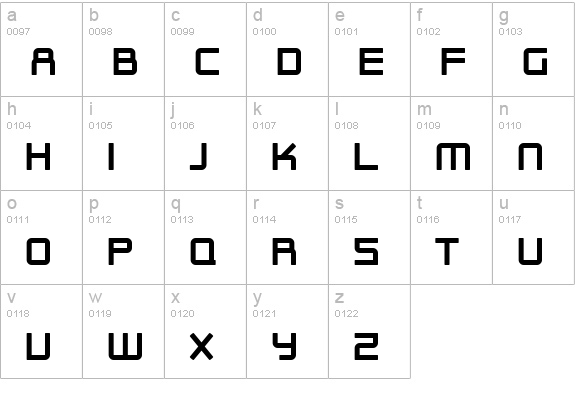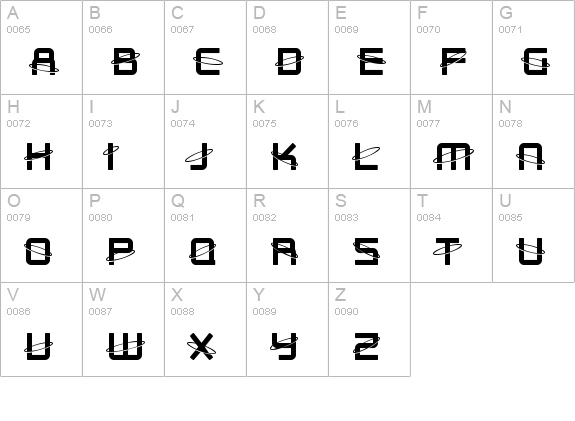
SF Outer Limits Upright Font Details
SF Outer Limits Upright is a captivating and futuristic font that pushes the boundaries of traditional typography. With its sleek and angular design, this font is perfect for projects that require a modern and edgy aesthetic. The bold and upright letterforms exude a sense of confidence and power, making it an excellent choice for headlines, logos, and branding materials. What sets SF Outer Limits Upright apart is not only its striking appearance but also the fact that it is freely available to download at FontsMarket.com. This means that designers and creatives alike can access this unique and versatile font without any cost or restrictions. Whether you are a professional designer or a student working on a personal project, SF Outer Limits Upright is a valuable asset that will enhance your creative endeavors. The character set of SF Outer Limits Upright includes a complete range of uppercase and lowercase letters, numbers, punctuation marks, and special characters. This extensive range allows for versatile and expressive typography, enabling you to bring your ideas to life with precision and impact. Whether you are designing a futuristic poster, a sci-fi movie title, or a cutting-edge website, SF Outer Limits Upright is the ideal choice to add a touch of modernity and sophistication to your designs. With its free availability at FontsMarket.com, this font provides an incredible opportunity to elevate your creative projects without any financial constraints. Don't miss out on this exceptional font that is sure to captivate and inspire. Download SF Outer Limits Upright today and unleash your creativity like never before.